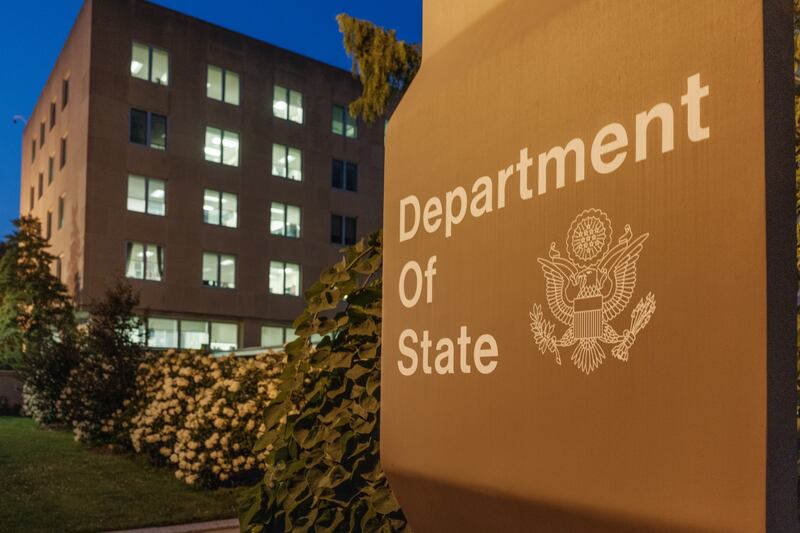
Little Marco Loses It Over Big Problem of Woke Typeface in State Dept.
Secretary of State Marco Rubio has picked a new target in the war against wokeness, insisting the State Department revert to a pre-Joe Biden-era typeface.
The move undoes a 2023 directive from then-Secretary of State Antony J. Blinken, who switched to a Calibri font to improve accessibility after 20 years of Times New Roman, on the recommendation of the department’s Office of Diversity and Inclusion.
On Tuesday, Rubio claimed the reversion offers a return to “tradition, formality, and ceremony,” in a directive sent to diplomatic outposts around the globe.
President Donald Trump’s administration has sought to undo an extensive list of Diversity, Equity, Inclusion, and Accessibility (DEIA) measures introduced under and predating former President Biden.
Among them were the abolition of DEI offices and the removal of diversity criteria for hiring and firing, effectively removing mandates for inclusivity in employment. It has also sought to undo various equality-oriented grants and programs, which Rubio reportedly labeled “radical,” under the loose banner of meritocracy.
The New York Times has seen the “Action Request” memo sent to the department, titled “Return to Tradition: Times New Roman 14-Point Font Required for All Department Paper,” which reportedly sets out to “restore decorum and professionalism to the department’s written work.”
Blinken’s switch to sans-serif typeface Calibri, which is regarded as looking less cluttered on the page, was intended to reduce barriers for readers with disabilities such as dyslexia, The Times reports. Rubio claimed the move, however, had not reduced the number of “accessibility-based document remediation cases.”
His memo said, “Switching to Calibri achieved nothing except the degradation of the department’s official correspondence,” instead insisting serif typefaces are “generally perceived to connote tradition, formality and ceremony.”
It also demanded that all writing be reduced from the Blinken-mandated 15-point back to its predecessor of 14-point.
Office lights are illuminated in the U.S. Department of State headquarters building at dusk on July 11, 2025.
Department of State offices are seen with a sans-serif typeface sign outside. J. David Ake/Getty Images
Rubio noted that serifs are used by the White House, the Supreme Court, on Air Force One’s livery, the State Department’s letterhead, and in other federal government departments.
The newspaper reports that Rubio admitted in his memo that moving over to Calibri, “was not among the department’s most illegal, immoral, radical or wasteful instances of D.E.I.A.”
A spokesperson for the State Department confirmed to the Daily Beast that the changes were being introduced, claiming they were intended to bolster credibility and dignity in official correspondence.
Serif typefaces have small flicks on the ends of letters, and are used by the Daily Beast in the body of its articles, although a sans serif is used in its headlines.
Rubio, whom Trump in 2016 derided as “Little Marco,” claimed sans serifs, which have no flicks at the ends of letters and are often associated with a more modern family of typefaces, are “informal.”
He had already abolished the office that had recommended Blinken’s move to Calibri in the first place.